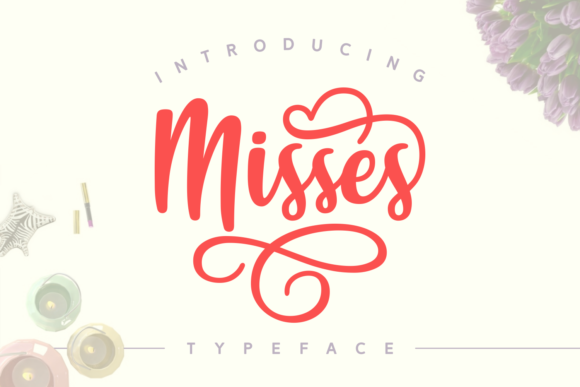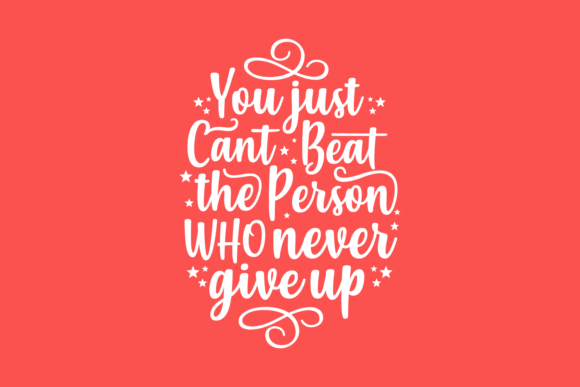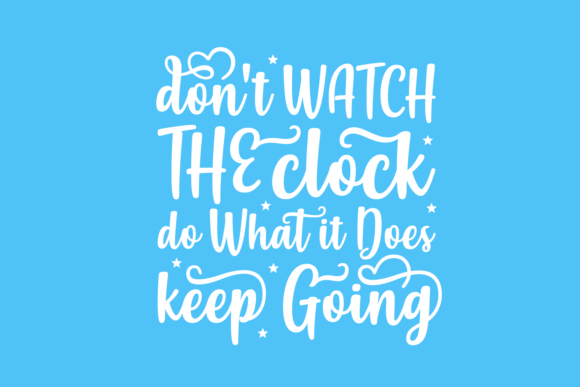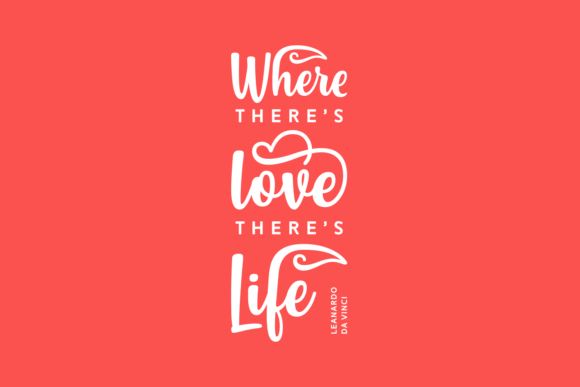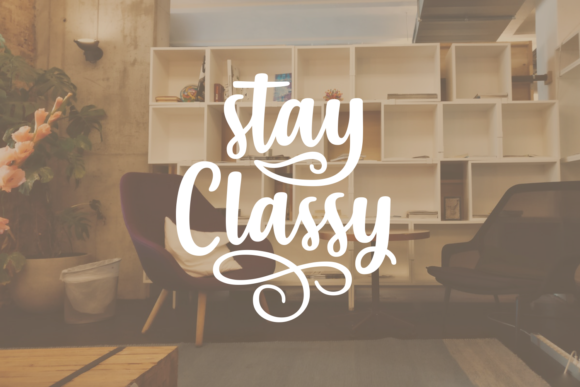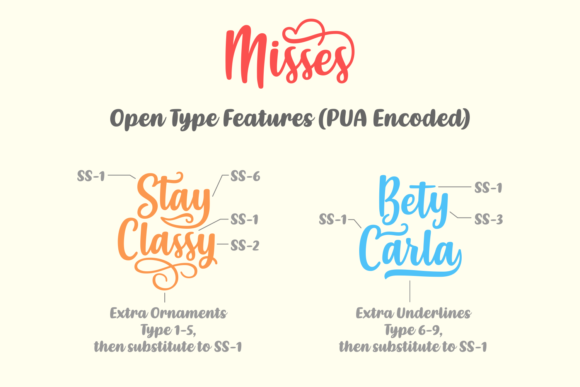
Misses Font
About Misses Font
Misses is a gorgeous handwritten script font, perfectly crafted to give your work a wonderfully whimsical feel. This font has tons of alternate characters, and you can mix’n’match the caps for an incomparable look.